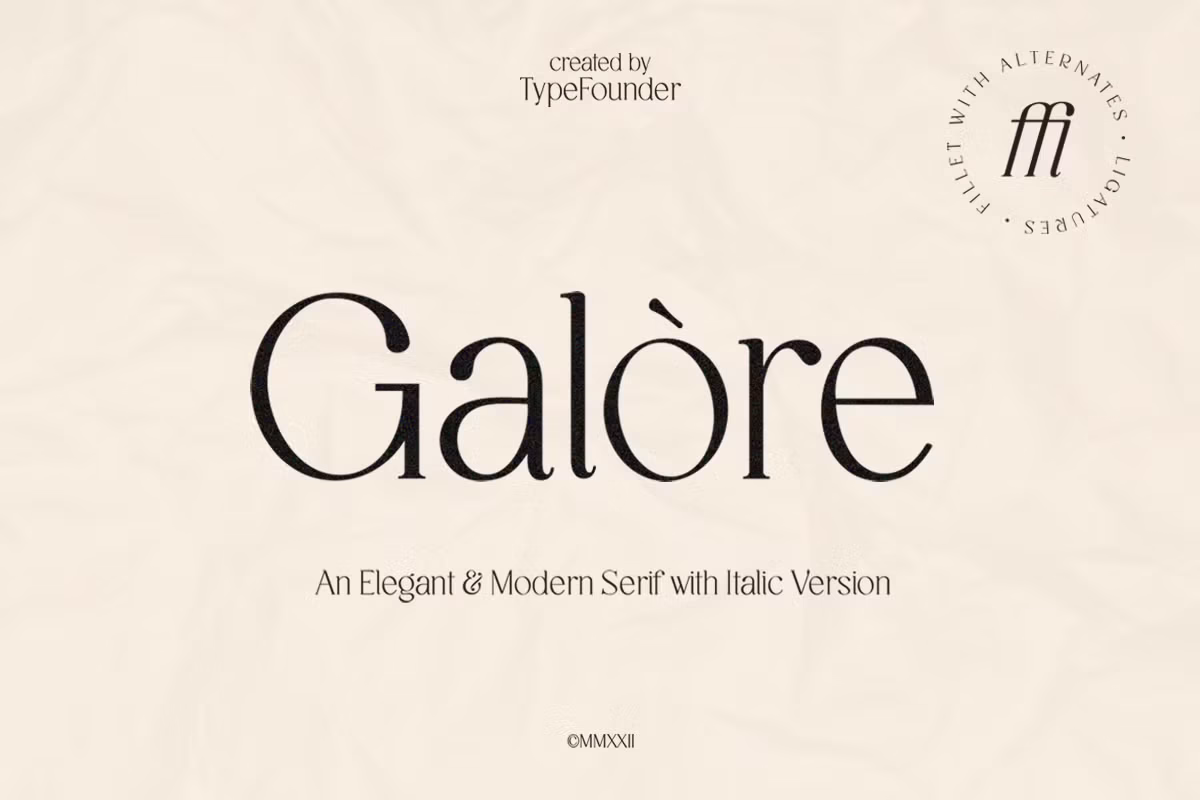
Galore - Elegant Modern Serif Font Free Download is a refined and contemporary serif typeface designed to add sophistication and elegance to any project. Featuring clean lines, sharp serifs, and a balanced structure, Galore is perfect for high-end branding, editorial design, luxury packaging, invitations, and more.
This modern serif font offers excellent readability while maintaining an air of luxury and style, making it ideal for both display text and body copy. Whether you're creating a logo, a website, or promotional materials, Galore elevates your design with its sleek and professional appearance.